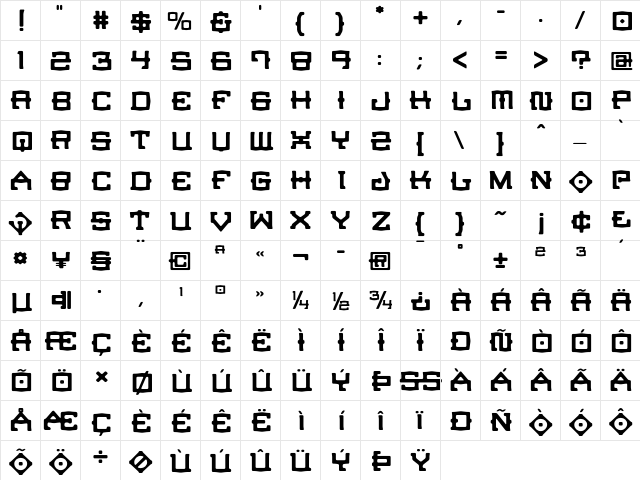
CrucibleBurnin-Medium Regular Font Preview
CrucibleBurnin-Medium Regular
Design Context for CrucibleBurnin-Medium Typeface
CrucibleBurnin-Medium is a composed and adaptable typeface that performs quietly and consistently across a wide range of design contexts.